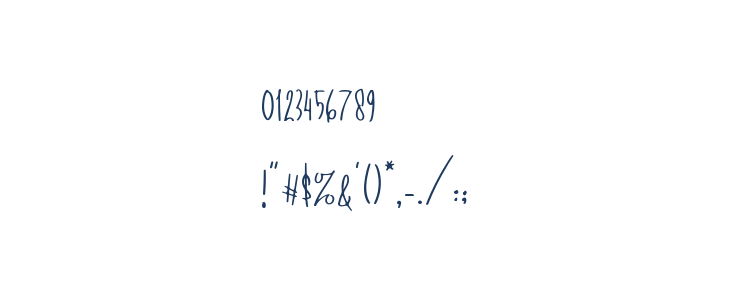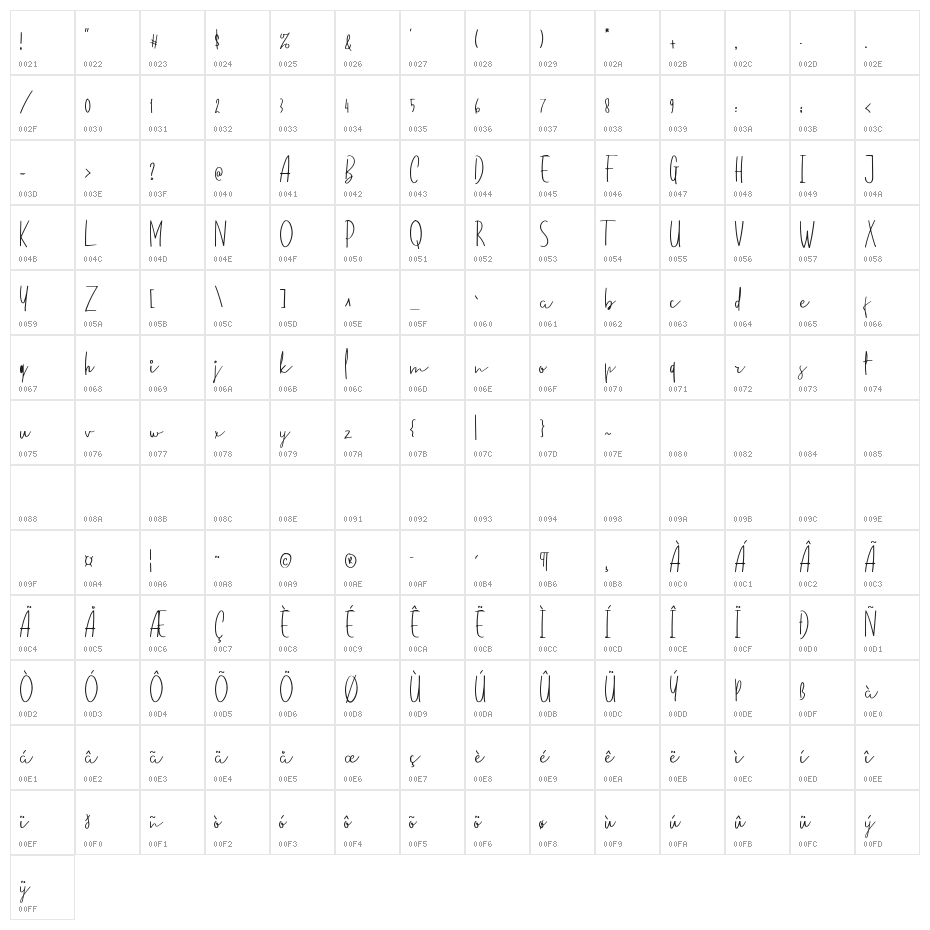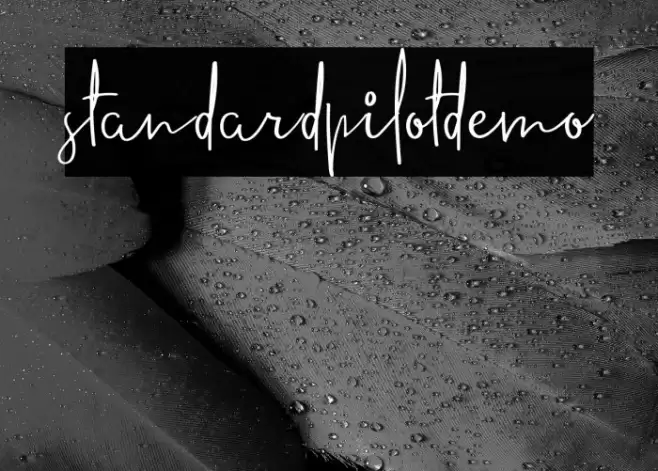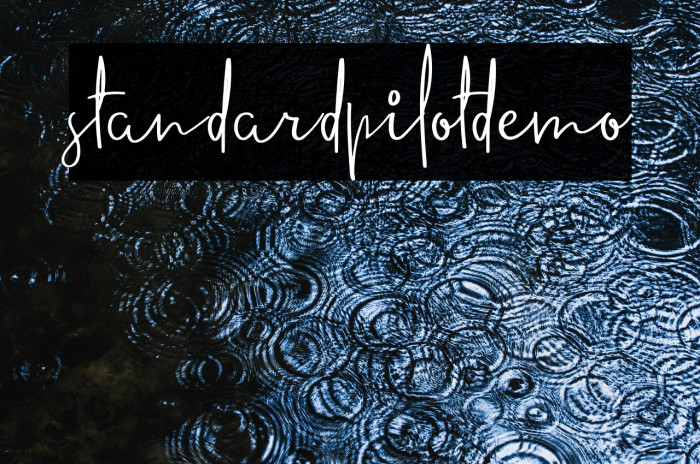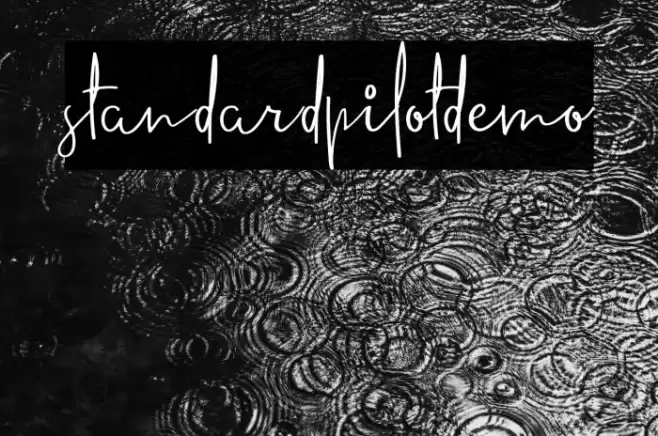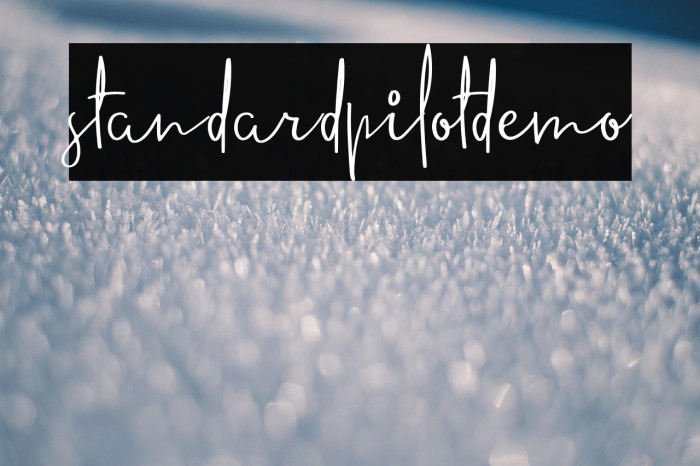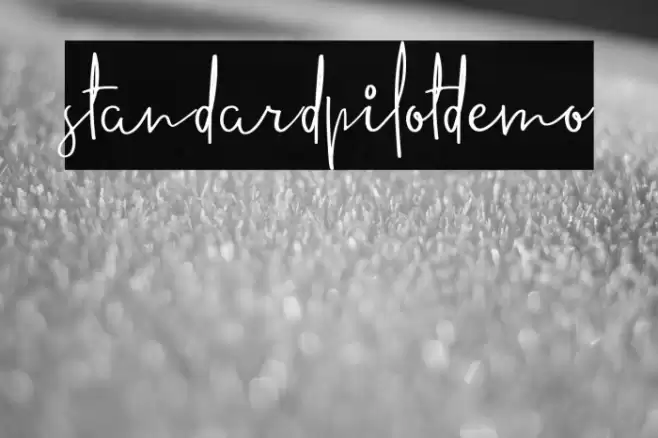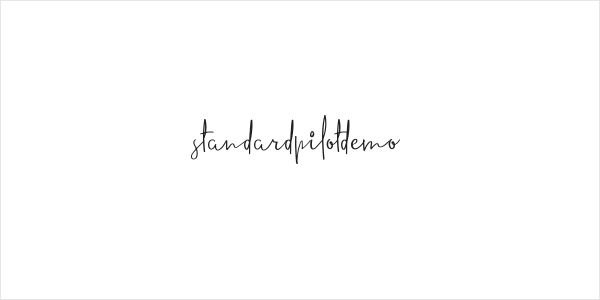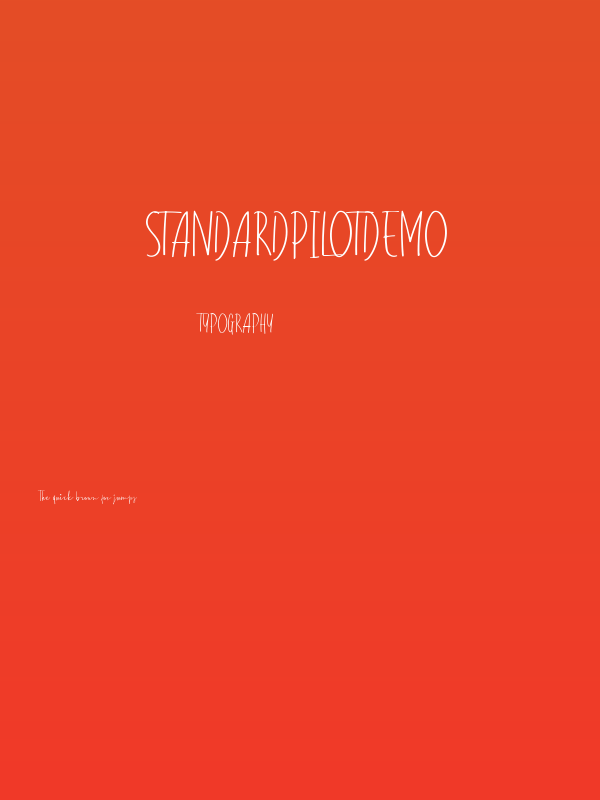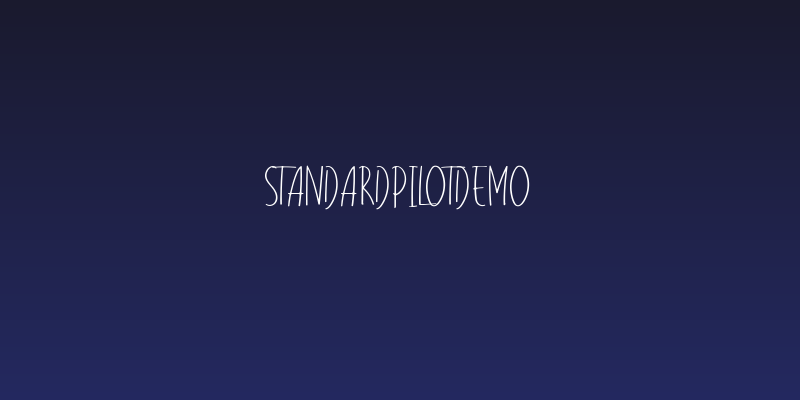
standardpilotdemo Font
standardpilotdemo Description
This font features a playful and whimsical style, combining both uppercase and lowercase letters with a handwritten flair. The uppercase letters are tall and narrow, with a slight slant that adds to the casual, informal appearance. The lowercase letters exhibit a more cursive, flowing style, with loops and curves that suggest a personal touch. The numerals are consistent with the uppercase letters, maintaining a narrow and slightly elongated form. Special characters are included, matching the overall aesthetic with a mix of straight and curved lines. This font is ideal for projects that require a personal, friendly, and approachable feel.
Overall StyleCasual, Playful
Use CaseLogos, Headlines, Invitations
Proposed ProjectsGreeting cards, invitations, personal branding, social media graphics, and casual event posters.